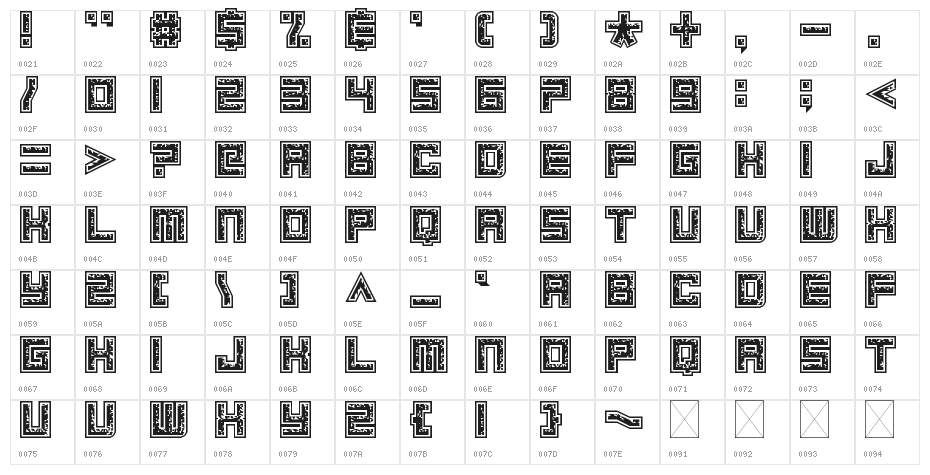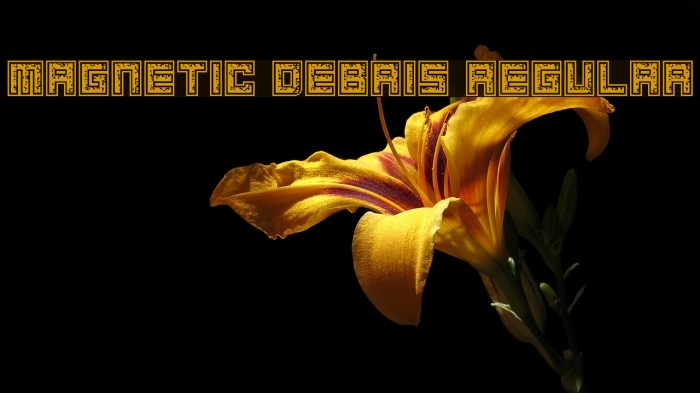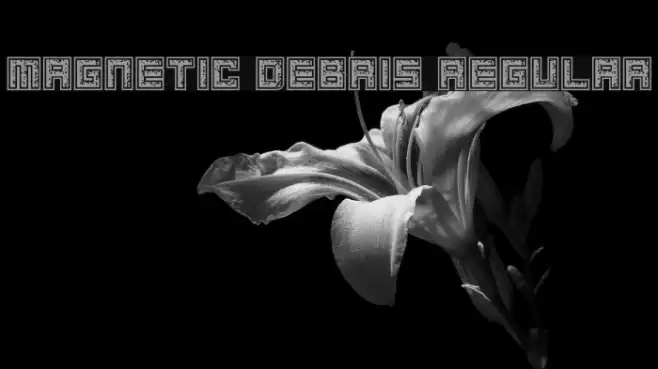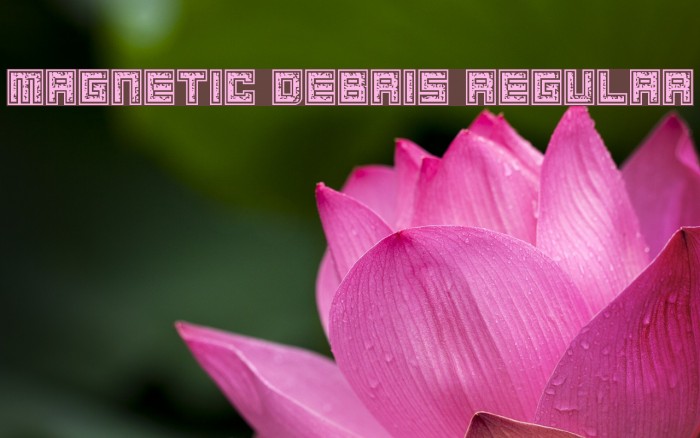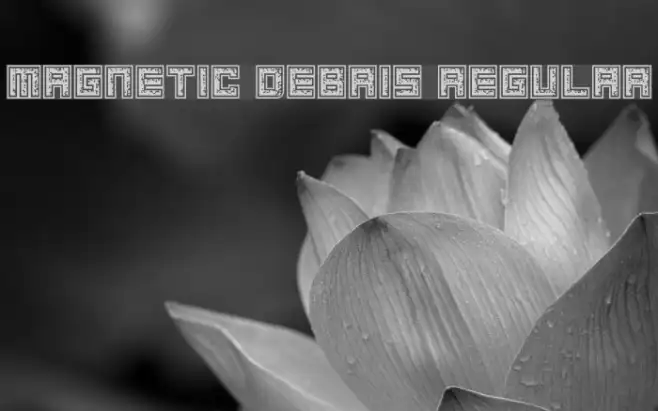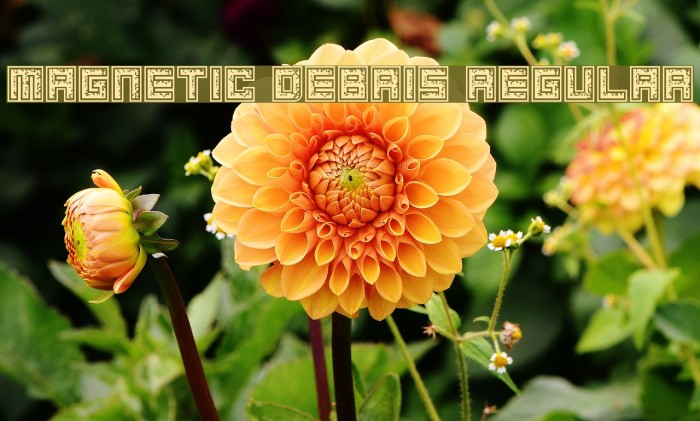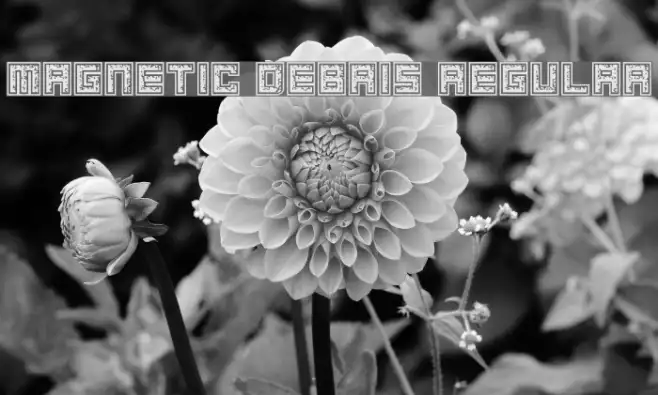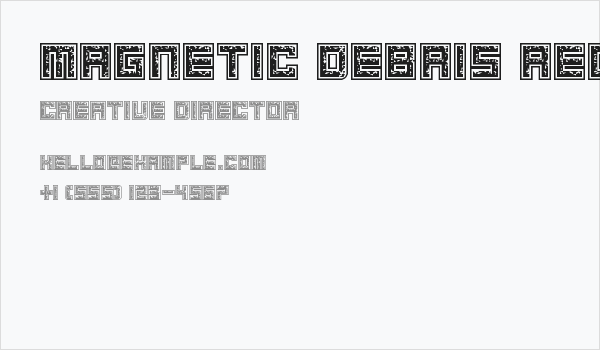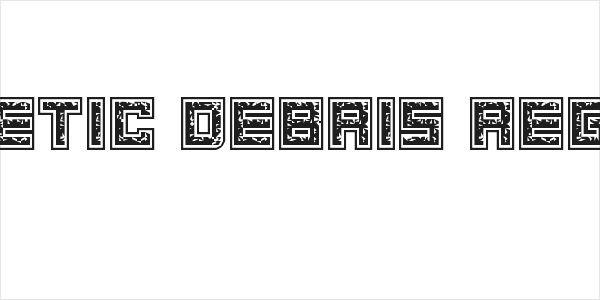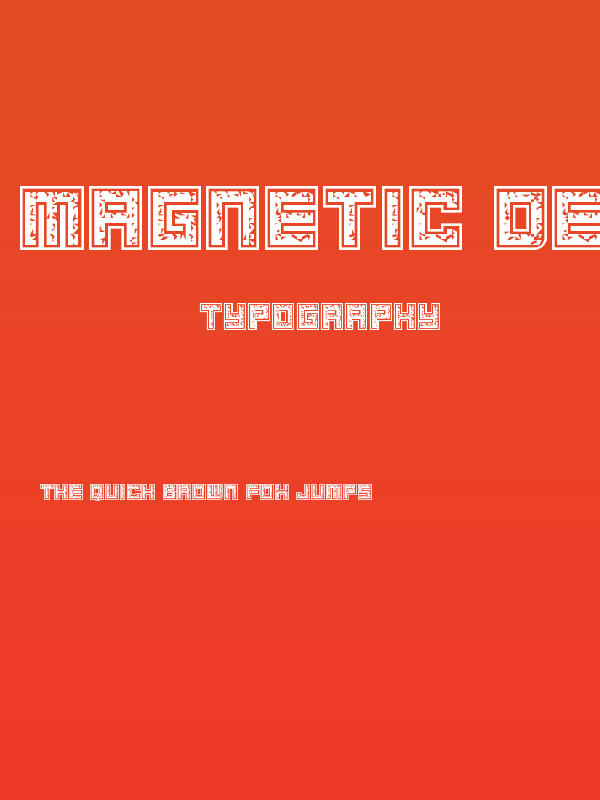
Magnetic Debris Regular Font
Magnetic Debris Regular Description
This font features a bold, decorative style with a unique textured pattern within each character. The design is reminiscent of a digital or mechanical theme, with sharp edges and a blocky structure. Each letter and number is enclosed in a thick outline, enhancing its bold appearance. The texture inside the characters adds a dynamic and energetic feel, making it stand out in any design. The font is highly stylized, making it suitable for projects that require a strong visual impact. Its distinct appearance is ideal for creative and modern designs.
| Proposed Projects | Ideal for posters, album covers, video game graphics, and any project needing a bold, modern look. |